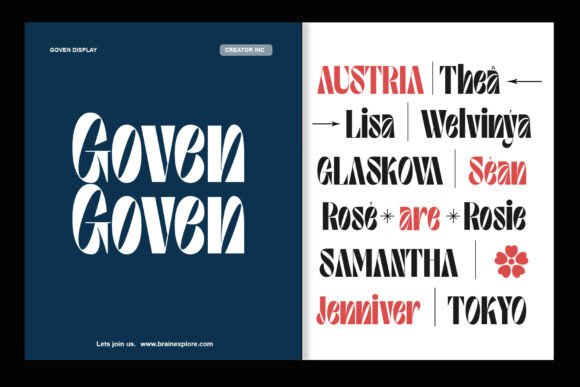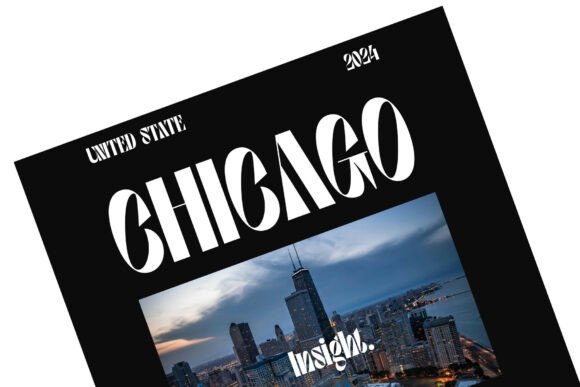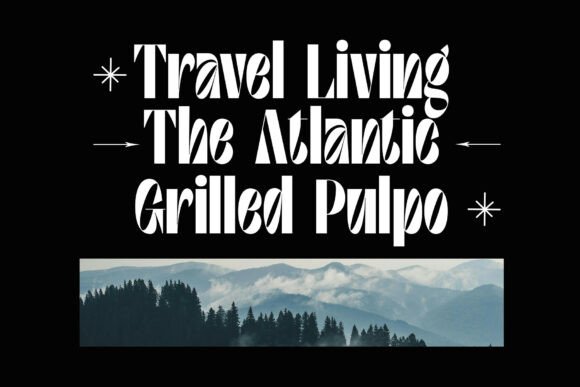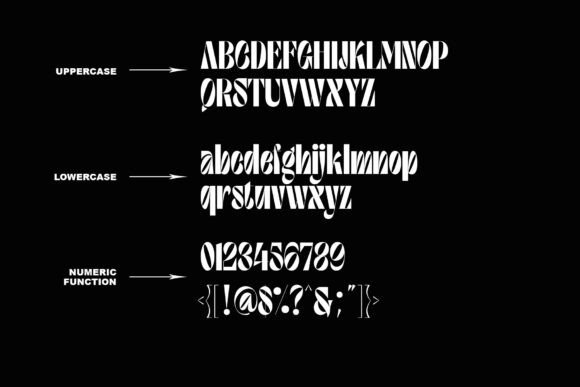
Goven Font: A Striking Modern Sans-Serif for Futuristic Designs
In the realm of typography, fonts play a crucial role in shaping the visual identity of a brand, product, or service. With the ever-evolving landscape of graphic design, the demand for unique and impactful fonts has never been higher. This is where Goven Font comes into play – a striking modern sans-serif that uses high-contrast, ultra-bold shapes to create a futuristic visual impact.
The Distinctive Features of Goven Font
Goven Font is characterized by its distinctive, thick-to-thin vertical strokes that make it a powerhouse for minimalist logos, high-fashion mastheads, and contemporary graphic design. The font’s high-contrast design creates a sense of drama and elegance, making it perfect for designs that require a touch of sophistication. The ultra-bold shapes of Goven Font ensure that it stands out in any design, making it an excellent choice for headlines, titles, and emphasis text.
Perfect for Minimalist Logos and High-Fashion Mastheads
The clean and sleek design of Goven Font makes it an ideal choice for minimalist logos and high-fashion mastheads. The font’s simplicity and elegance ensure that it doesn’t overpower the logo or masthead, while its boldness and contrast make it highly visible. Whether you’re designing a logo for a tech startup or a masthead for a fashion magazine, Goven Font is an excellent choice.
Contemporary Graphic Design Applications
Goven Font’s versatility extends beyond logos and mastheads, making it a valuable addition to any graphic designer’s toolkit. The font can be used in a variety of contemporary graphic design applications, including:
- Posters and flyers: Goven Font’s boldness and contrast make it perfect for creating eye-catching posters and flyers.
- Social media graphics: The font’s clean and sleek design ensures that it stands out on social media platforms.
- Packaging design: Goven Font’s elegance and sophistication make it an excellent choice for packaging design.
- Web design: The font’s legibility and readability make it perfect for web design applications.
Why Designers and Crafters Love Goven Font
Designers and crafters love Goven Font for several reasons:
- Unique and impactful design: Goven Font’s distinctive design makes it stand out from other fonts.
- Versatility: The font can be used in a variety of design applications.
- Elegance and sophistication: Goven Font’s high-contrast design creates a sense of drama and elegance.
- Easy to read and legible: The font’s clean and sleek design ensures that it is easy to read and legible.
How to Use Goven Font Effectively
To use Goven Font effectively, consider the following tips:
- Pair it with a neutral font: Pair Goven Font with a neutral font to create contrast and visual interest.
- Use it for emphasis text: Use Goven Font for emphasis text, such as headlines and titles.
- Experiment with colors: Experiment with different colors to create a unique and impactful design.
- Keep it simple: Keep your design simple and clean to ensure that Goven Font stands out.
Goven Font is a striking modern sans-serif that uses high-contrast, ultra-bold shapes to create a futuristic visual impact. Its distinctive, thick-to-thin vertical strokes make it a powerhouse for minimalist logos, high-fashion mastheads, and contemporary graphic design. With its versatility, elegance, and sophistication, Goven Font is an excellent addition to any graphic designer’s toolkit.